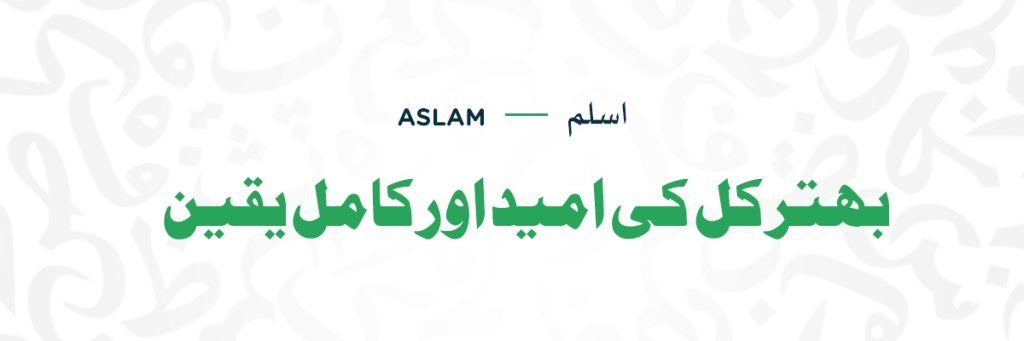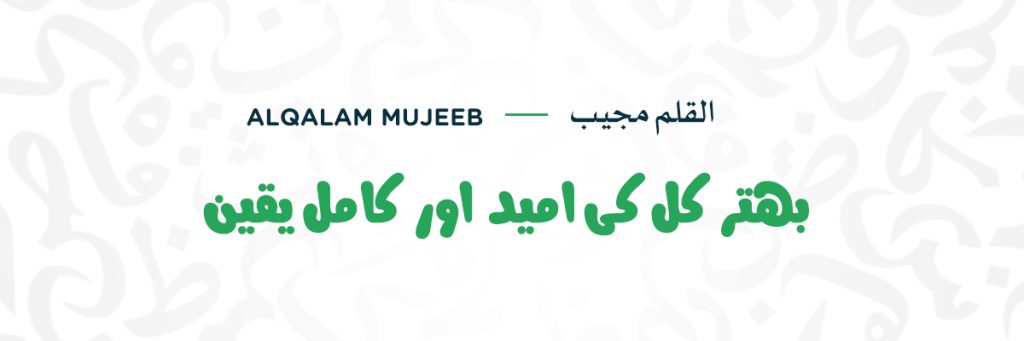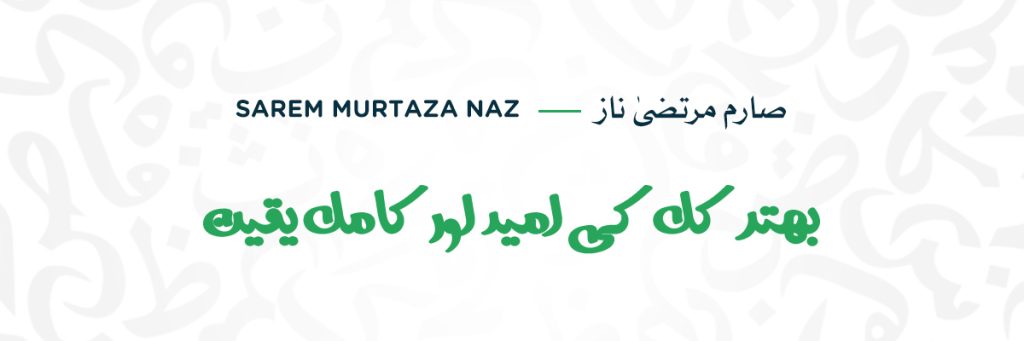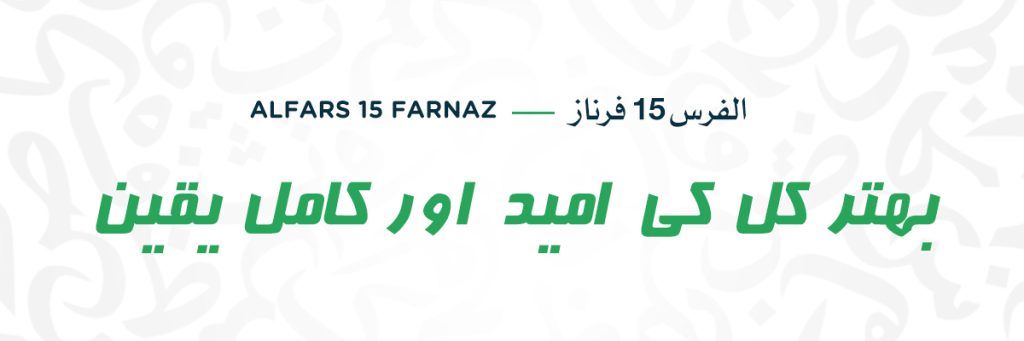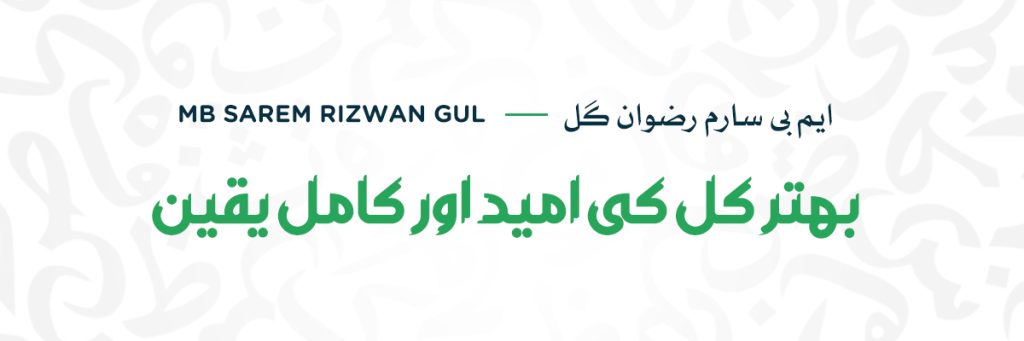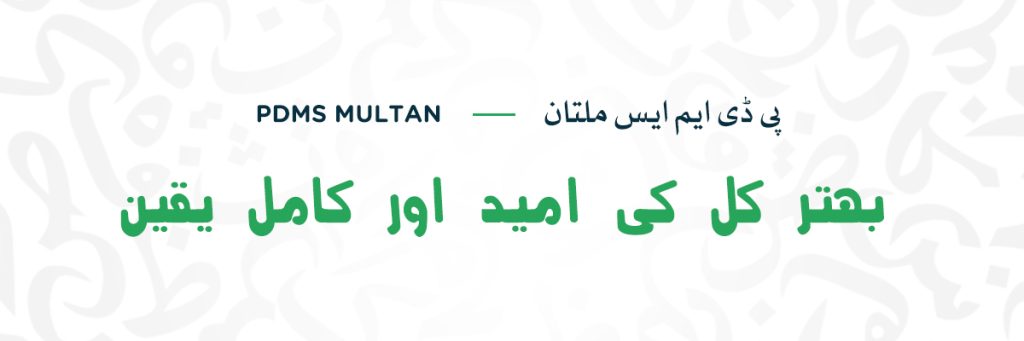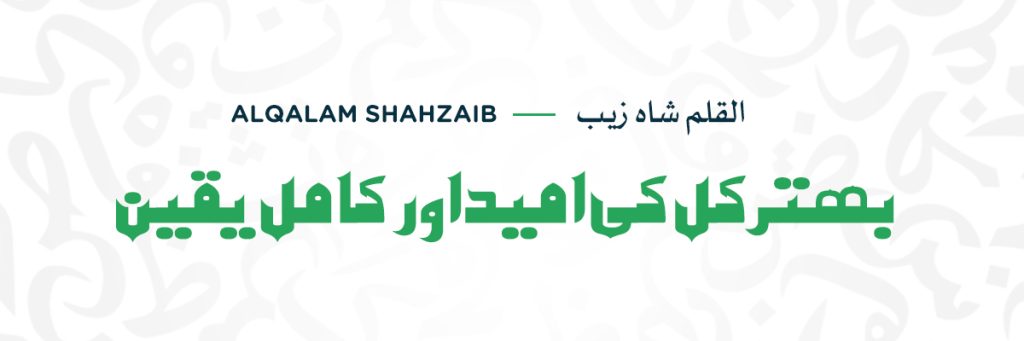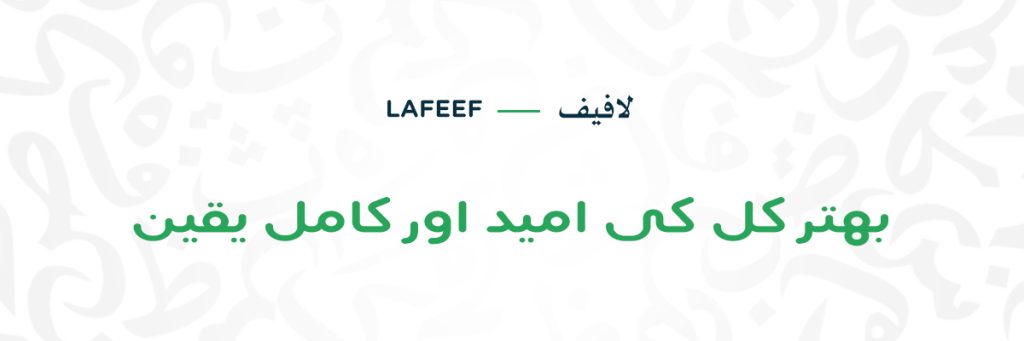
First impressions matter, either in the case of humans or even fonts and style. If something, no matter how well written, does not feel aesthetically appealing, our mind rejects it. To overcome this hurdle, in the past few decades, we have seen rapid development in the typography industry. Thousands of fonts have been developed till now to fulfill your various design needs or to satisfy the reader’s eyes with visually attractive texts. When it comes to reading, titles and headings are often the first elements that grab a reader’s attention, setting the tone for your message. Mostly, people skip the fine small prints and go over just titles to grasp the idea of the text. Therefore, titles matter the most, and they should be prominent for the reader’s ease. When it comes to Urdu content, choosing the right font can significantly impact the overall effect and readability.
The bold font trend emerged from the larger trend of minimalism. Oversized fonts allow the rest of the composition to remain clean and simple. This guide here will help you find the best bold Urdu fonts by detailing their unique characteristics. Bold Urdu fonts command attention, enhance readability, and express style and personality. We will explain how they can increase the visual appeal and effectiveness of your titles, headings, and other artworks. For a website, presentation, or marketing materials, bold Urdu fonts can truly be a game changer for your typo needs. So, let’s explore these available highlighting fonts and see how they make your titles and other creative projects shine.
We have precisely selected various Urdu fonts with bold, broad, expnaded and heavy weights. Our collection includes fonts with different styles, look, type and categories. For the convenience of our readers and designers, we have divided these selected fonts into two categories, single bold fonts with no sizes and weights – and bold fonts from font families with various weights. First, we are going to take a look at these single font-weight Urdu typefaces and explore where and how you can use them in your creative or formal typographic projects.
| No. | Font Name | Designer | Appearance/Style |
| 1. | Lalezar | Borna Izadpanah | Bold and bubbly with filled letters and soft corners |
| 2. | Titr | Sinasoft Co. a Persian foundry | Rounded Naskh-inspired bold font with monospaced letters |
| 3. | Arif | Syed Manzar Hasan Zaidi | Bold and bubble font with a subtle irregularity in letterform |
| 4. | Aslam | Syed Manzar Hasan Zaidi | Bold and well-aligned Qalam writing font with horizontal letters more thicker than vertical ones. |
| 5. | AlQalam Mujeeb | Ishtiaq Ali Attari | Cartoon-style font with filled letterforms and untidy appearance. |
| 6. | Sarem Murtaza Naz | Sanaullah Mangnejo Sarem | bold and wide Sindhi font featuring unclear curves and corners |
| 7. | AlFars 15 Farnaz | Syed Irtiza Hassan Rizvi | Bold and slightly tilted typeface with subtle roundness |
| 8. | MB Sarem Rizwan Gul | Sanaullah Mangnejo Sarem | Bold and decorative |
| 9. | PDMS Multan | Pakistan Data Management Services | Naskh Inspired bold typeface with a playful vibe |
| 10. | AlQalam ShahZaib | Ishtiaq Ali Attari | modern, fat, filled, and wide Urdu font |
| 11. | Sarem Hasnain | Sanaullah Mangnejo Sarem | Sindhi calligraphic font with elongated terminals |
| 12. | Lafeef | Mostafa El Abasiry. | Modern Arabic typeface with rounded letterform and distressed terminals |
| 13. | PT Bold Heading | Microsoft | Bold and well-aligned Qalam writing font with horizontal letters more thicker than vertical ones. |
| 14. | AA Sameer Mosan | AA Sameer | a bold freestyle Arabic font with expressive letterforms |
| 15. | GE East Urdu | Ishtiaq Ali Attari Qadri | Displays geometric aesthetic with filled and wide letters |
| 16. | AlFars 17 Jadid | Syed Irtiza Hassan Rizvi | Bold and geometric Qalam writing font with horizontal letters more thicker than vertical ones. |
| 17. | AlQalam Makki | Ishtiaq Ali Attari | Qalam-writing bold font inspired by Nastaliq calligraphy |
| 18. | Bombay Black Unicode | Syed Manzar Hasan Zaidi | Extra-bold font with strong strokes |
| 19. | Helvetica Neue LT Arabic | Microsoft | Straight on line with subtle roundness and filled letters |
| 20. | Hisham LT | Lebanese calligrapher Mr. Ahmed Maged | Bold and wide Qalam writing font with contrasting thickness |
| 21. | Javed | Syed Manzar Hasan Zaidi | bold and geometric font characterized by its square shapes, sharp edges, and condensed and filled letterforms |
| 22. | UL Sajid Heading | UrduLife | fat, filled, and wide letterforms featuring small negative spaces |
| 23. | XB Titre | Behnam | a freestyle and filled Arabic font family |
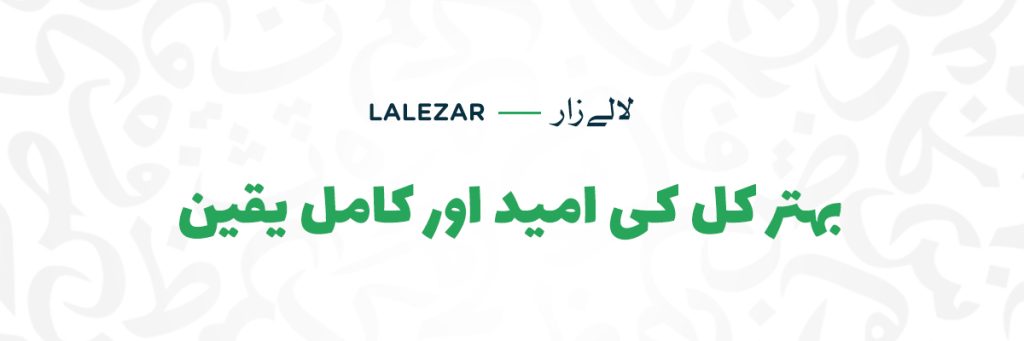
Lalezar offers a playful and cheerful vibe with its rounded forms and filled letterforms, evoking the bold and dynamic lettering of the 1960s and 1970s Iranian film posters. Its soft corners add a touch of warmth and friendliness, making it perfect for creating inviting titles, film posters, headings, and signage. Whether used in digital or print designs, Lalezar adds a fun and energetic element to any Urdu text.